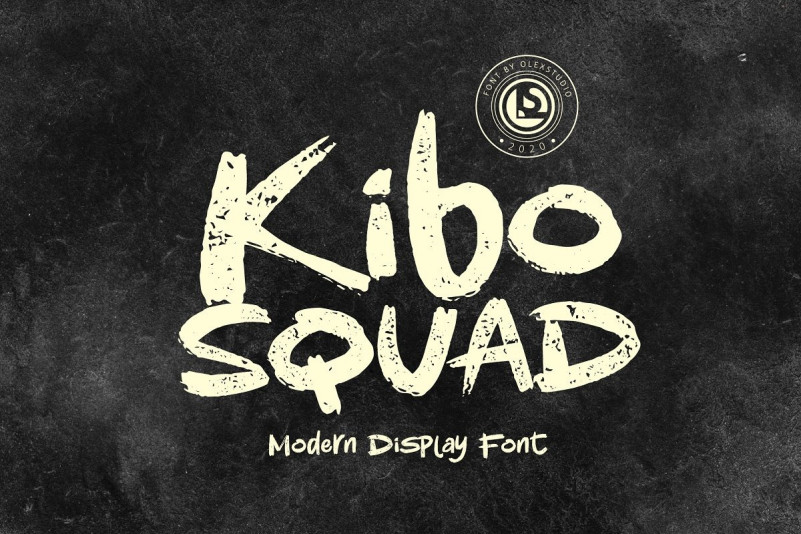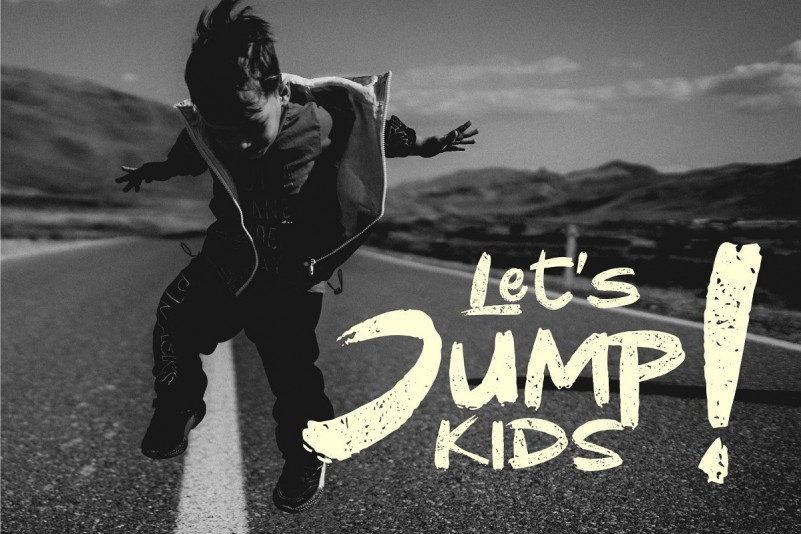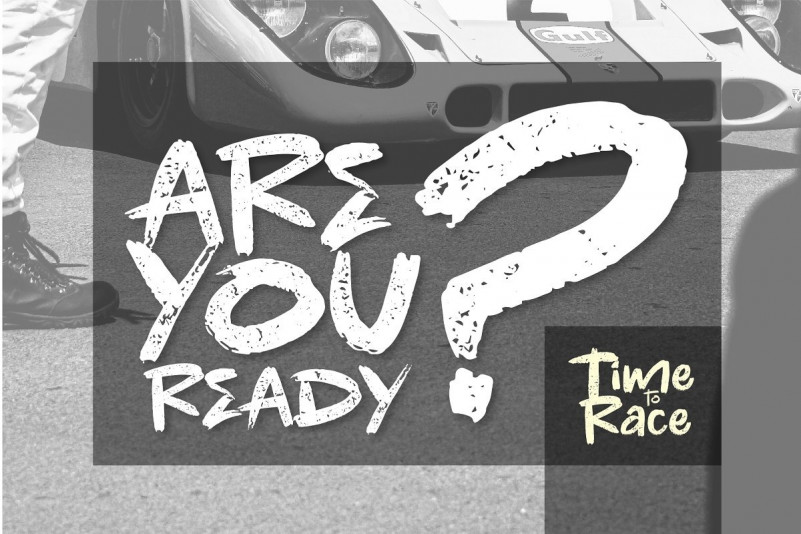
KIBO SQUAD Font
“KIBO SQUAD – Display Comic” Font will look gorgeous on all your designs, invitation, poster design, book design, branding materials, logo’s, t-shirt and all project design other.